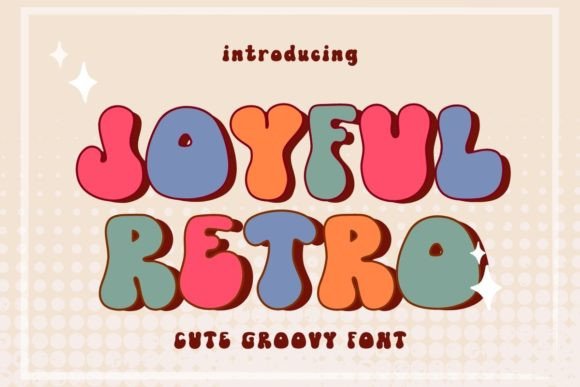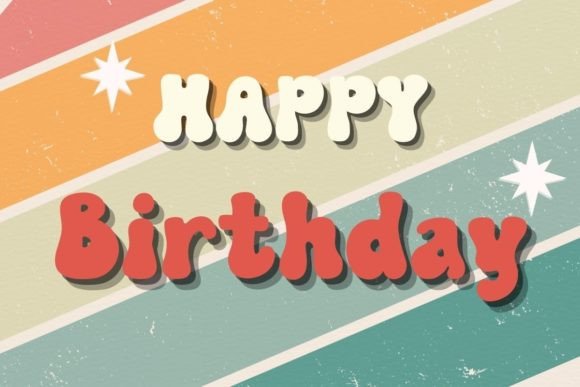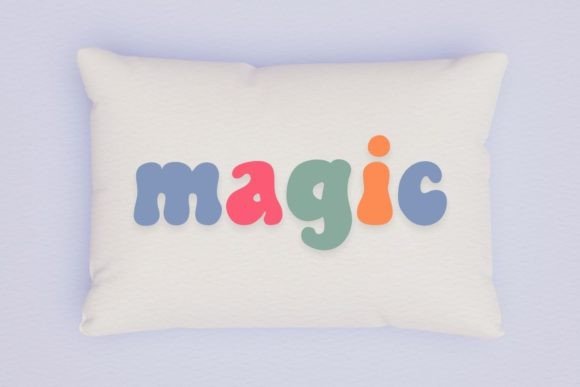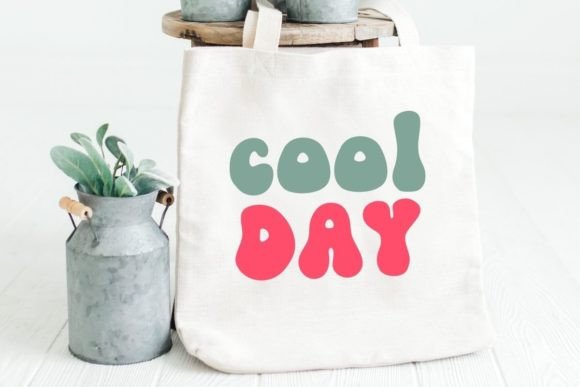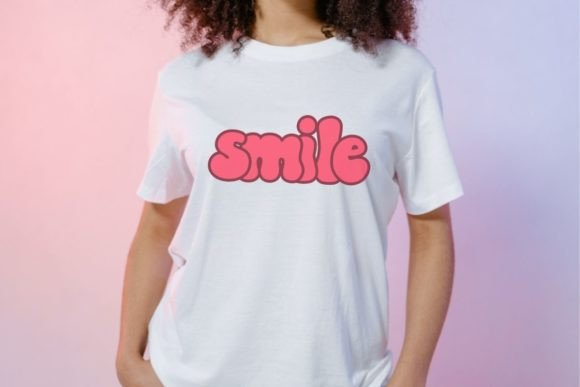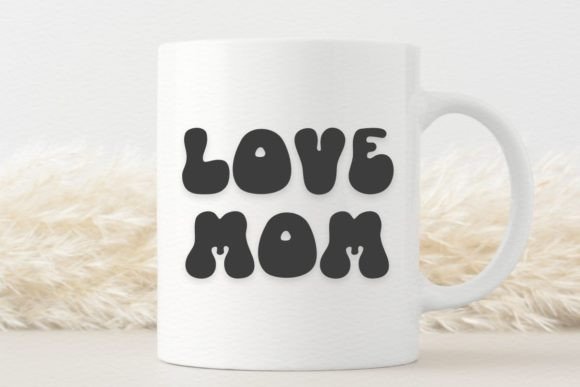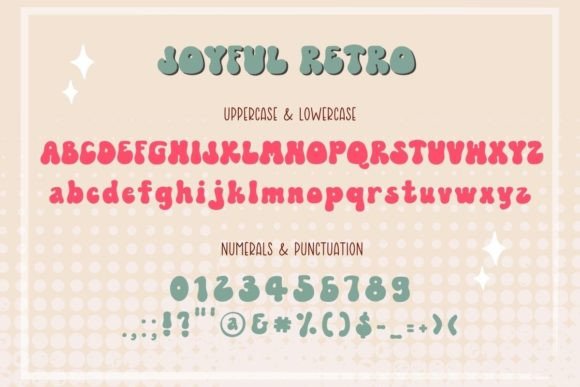
Joyful Retro Font
Joyful Retro is a cute groovy font that will help you enjoy and have fun with your designs. Perfect for creating a wide variety of new designs to match products such as banners, content, mugs, cards, shirts, stationery, social media posts, and more!